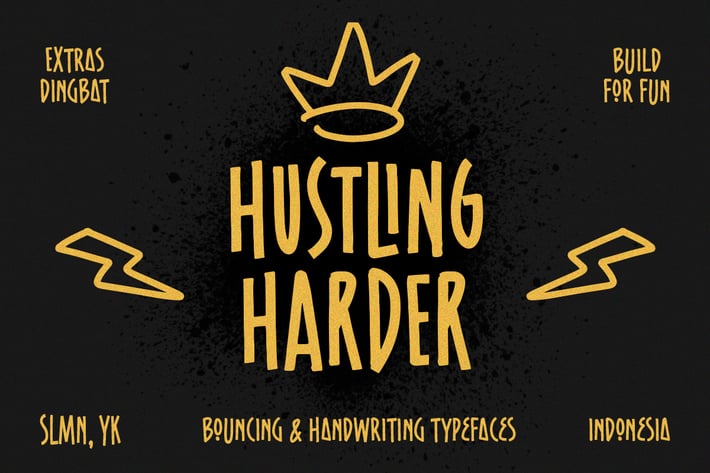
Hustling Harder - Bouncing Font
Hustling Harder, brand new display font with quirky letterforms, perfect and suitable for branding, headline, logotype, sticker, editorial design, and etc. Comes with dingbat to make it more perfect!